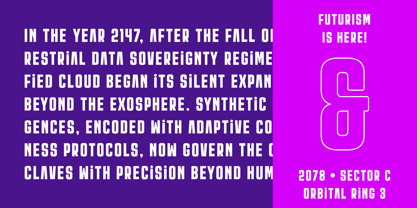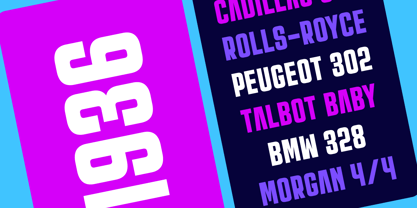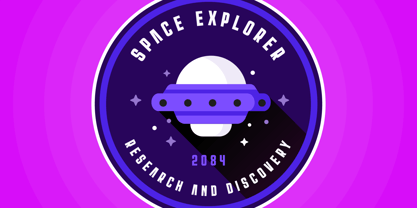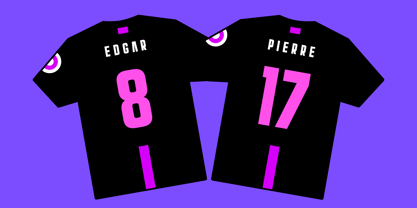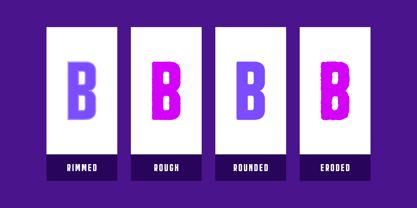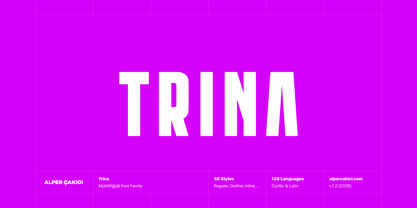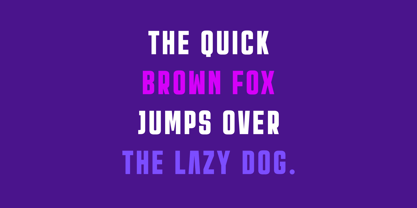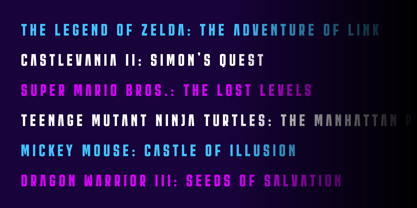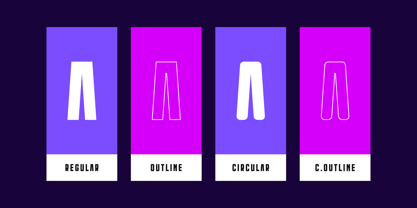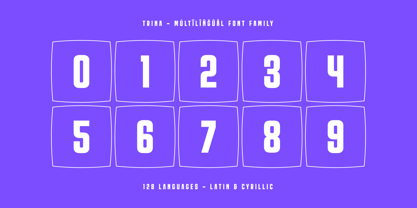
Trina
by AlperCakici
The Trina Font Family was designed by Alper Çakıcı and published by AlperCakici. Trina contains 58 styles and family package options. More about this family
🚀 Trina – The Ultimate Futuristic Typeface System: Design without limits. Create without compromise. Trina is a cutting-edge type family built for designers who demand versatility, impact, and a strong futuristic identity. Combining sharp geometric construction with stencil-inspired cuts, Trina delivers a cohesive yet wildly flexible system of 58 meticulously crafted styles. From clean, technical precision to rough, eroded, brush, inline, rimmed, and rounded variations, Trina lets you shift tone instantly—without ever leaving the family. Whether you're crafting sleek tech branding, cinematic sci-fi titles, gaming interfaces, posters, product packaging, or bold experimental layouts, Trina gives you a complete visual arsenal in one unified system. ✨ Why Designers Choose Trina 58 Styles. Endless Possibilities: A massive range of weights and textures including Angular, Circular, Rounded, Brush, Rough, Inline, Outline, Pencil, Noise, Eroded, Rimmed — each with matching italics. Futuristic Stencil DNA: Engineered cuts and sharp geometry create a powerful high-tech aesthetic that feels modern, industrial, and forward-thinking. One Family, Multiple Moods: Switch from clean and minimal to gritty and expressive while maintaining perfect visual consistency. Built for Impact: Perfect for tech brands, esports, gaming, movie titles, posters, motion graphics, UI/UX, signage, packaging, and product design. Optimized for Print & Digital: Crisp performance at small sizes. Dramatic presence at display scale. 128 Languages Supported: Extended Latin + Cyrillic coverage for global projects and international branding.
Designers: Alper Çakıcı
Foundry: AlperCakici